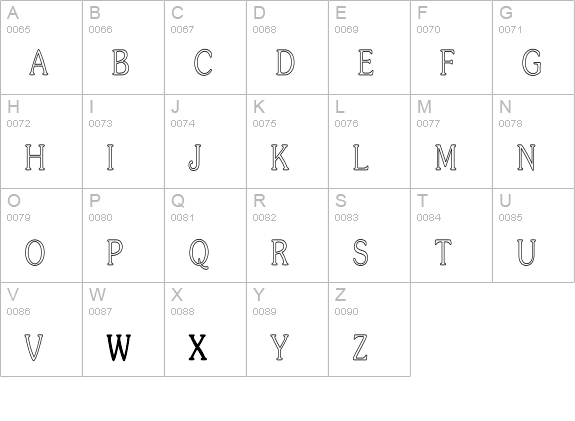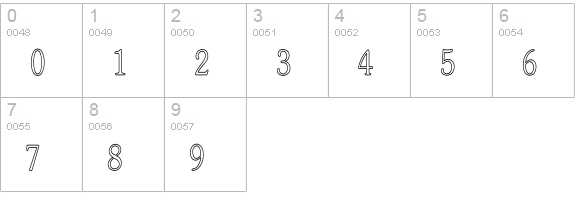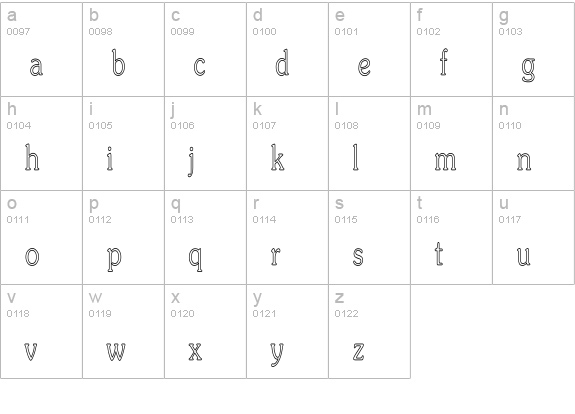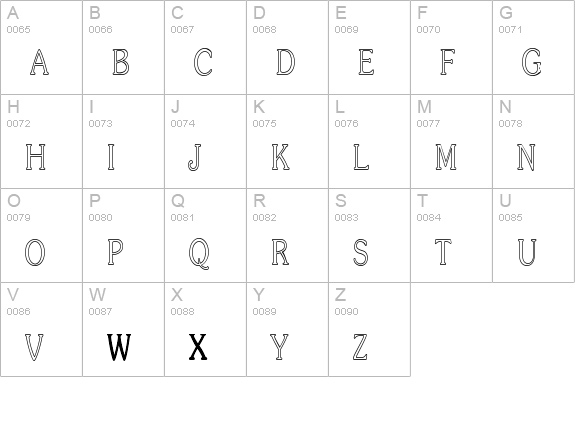
Souvenir-LightHC Font Details
Introducing Souvenir-LightHC, a stunning font that effortlessly combines elegance and modernity. This captivating typeface is perfect for adding a touch of sophistication to any project, whether it be a logo design, branding materials, or even a wedding invitation. With its sleek and delicate curves, Souvenir-LightHC exudes a sense of grace and refinement. Its slim design allows for easy readability while maintaining an air of elegance. Each letter is meticulously crafted, showcasing attention to detail and a commitment to excellence. One of the most incredible aspects of Souvenir-LightHC is that it is absolutely free. Yes, you read that correctly. This gorgeous font is freely available to download at FontsMarket.com. Now, you can enhance your creative endeavors without worrying about breaking the bank. Imagine the possibilities with Souvenir-LightHC. Craft a visually stunning logo that captures the essence of your brand or create eye-catching headlines that demand attention. With this font, you have the power to elevate your designs and leave a lasting impression. Whether you're a professional designer or a passionate hobbyist, Souvenir-LightHC is the perfect addition to your font collection. Its versatility and timeless appeal make it a must-have for any creative project. So don't wait any longer. Head over to FontsMarket.com and download Souvenir-LightHC today. Unleash your creativity and let this stunning font take your designs to new heights. With its exquisite beauty and the fact that it's free, Souvenir-LightHC is truly a gift to designers everywhere.